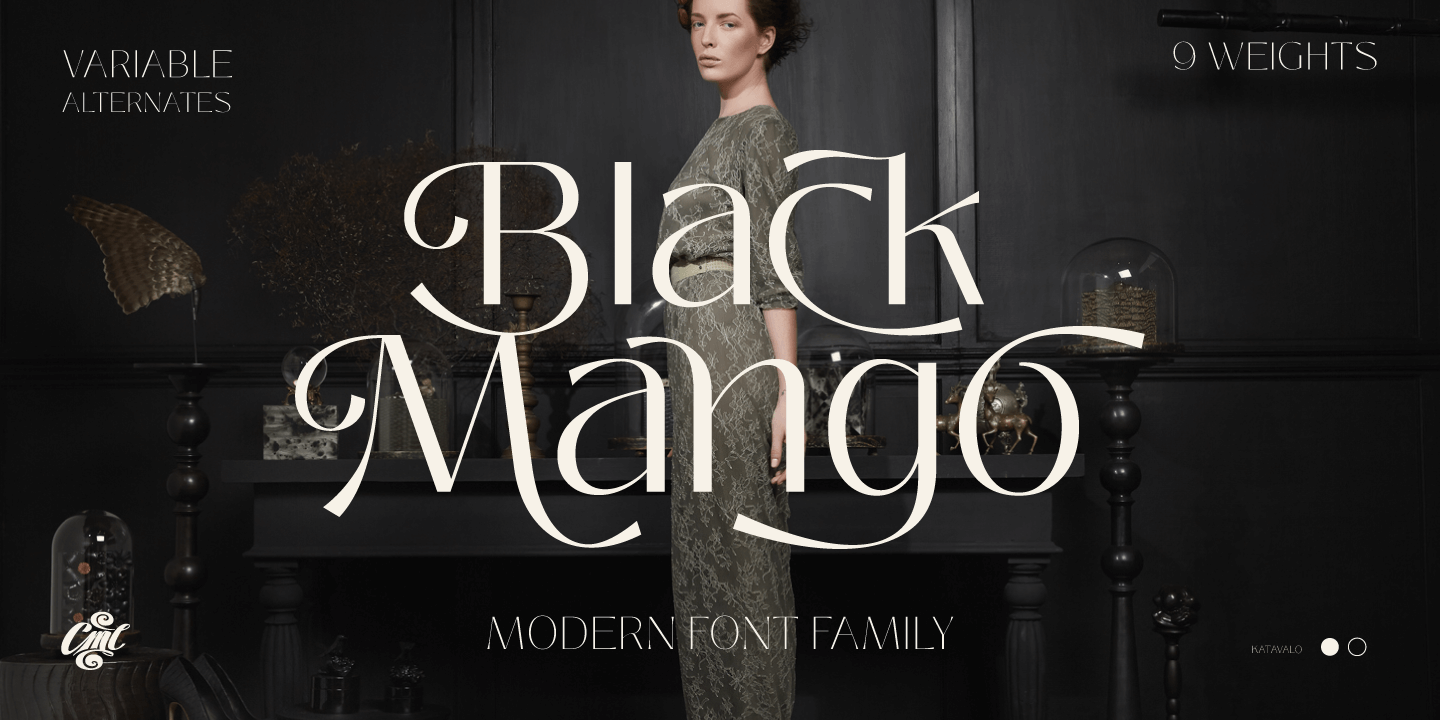
Black Mango Font is perfect for tropical resort branding, exotic fruit packaging, summer festival promotions, Caribbean restaurant menus, vacation destination marketing, and vibrant lifestyle campaigns. Its exotic character makes it ideal for juice bars, tropical fashion brands, beach clubs, island tourism operators, and any application requiring bold, tropical typography that conveys exotic adventure, tropical paradise, and sun-soaked sophistication.
Black Mango Font is exciting because it captures the luscious sweetness and exotic allure of tropical paradise through richly designed letterforms that evoke the vibrant energy of island life. Its bold presence and tropical aesthetic create an immediate sense of escape and adventure, making it perfect for brands seeking to transport audiences to sun-drenched beaches and exotic destinations. The font's tropical character instantly infuses any design with the irresistible charm of paradise.
Black Mango Font family includes tropical-inspired weight variations typically featuring Regular, Medium, Bold, and Black options with flowing styles that mirror the organic curves of tropical fruit. The family often incorporates exotic decorative elements, tropical symbols, and vibrant character alternatives designed for vacation and lifestyle applications, providing designers with comprehensive tools for creating authentic, paradise-inspired typographic experiences.